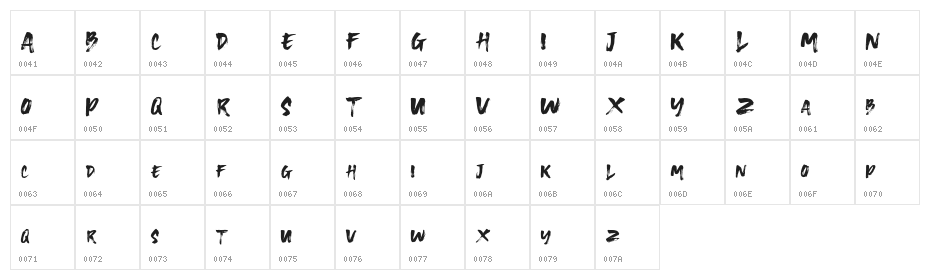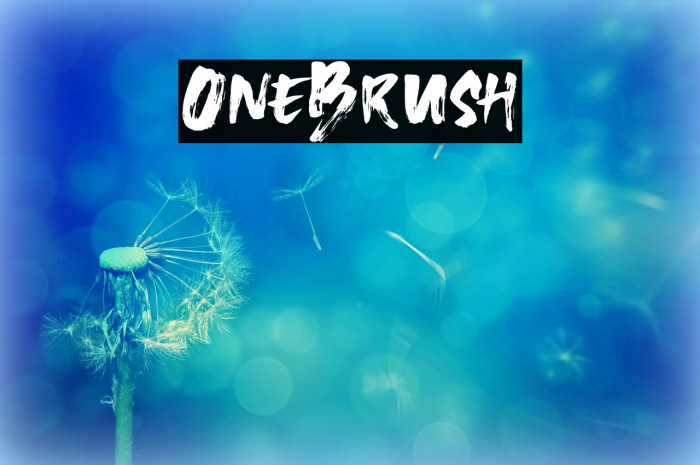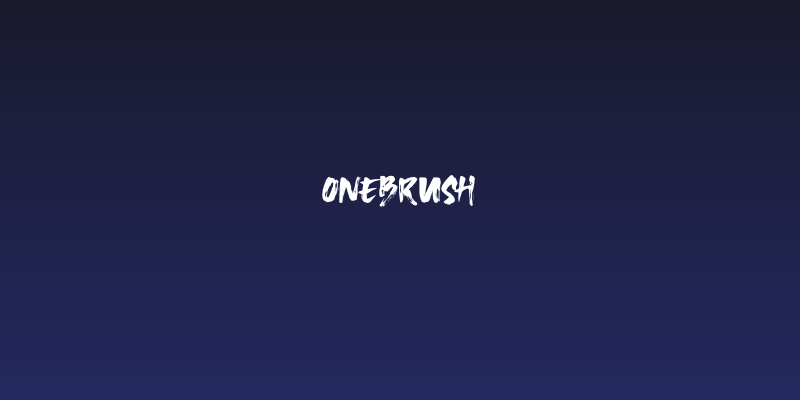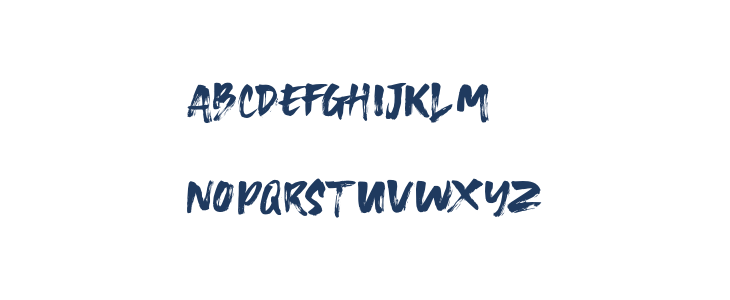
OneBrush Font
OneBrush Description
This font features a bold, expressive brush style that mimics the natural strokes of a paintbrush. The characters are dynamic and energetic, with varying thicknesses that give a sense of movement and fluidity. The uppercase letters are particularly striking, with strong, sweeping lines that create a sense of urgency and impact. The lowercase letters maintain the same brush-like quality, offering a cohesive look across the entire alphabet. This font is perfect for projects that require a personal, artistic touch, such as posters, logos, and creative branding materials.